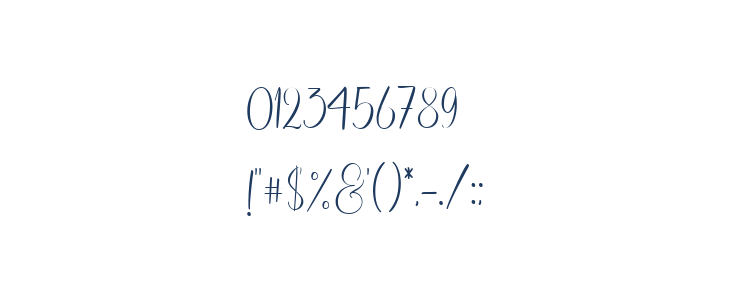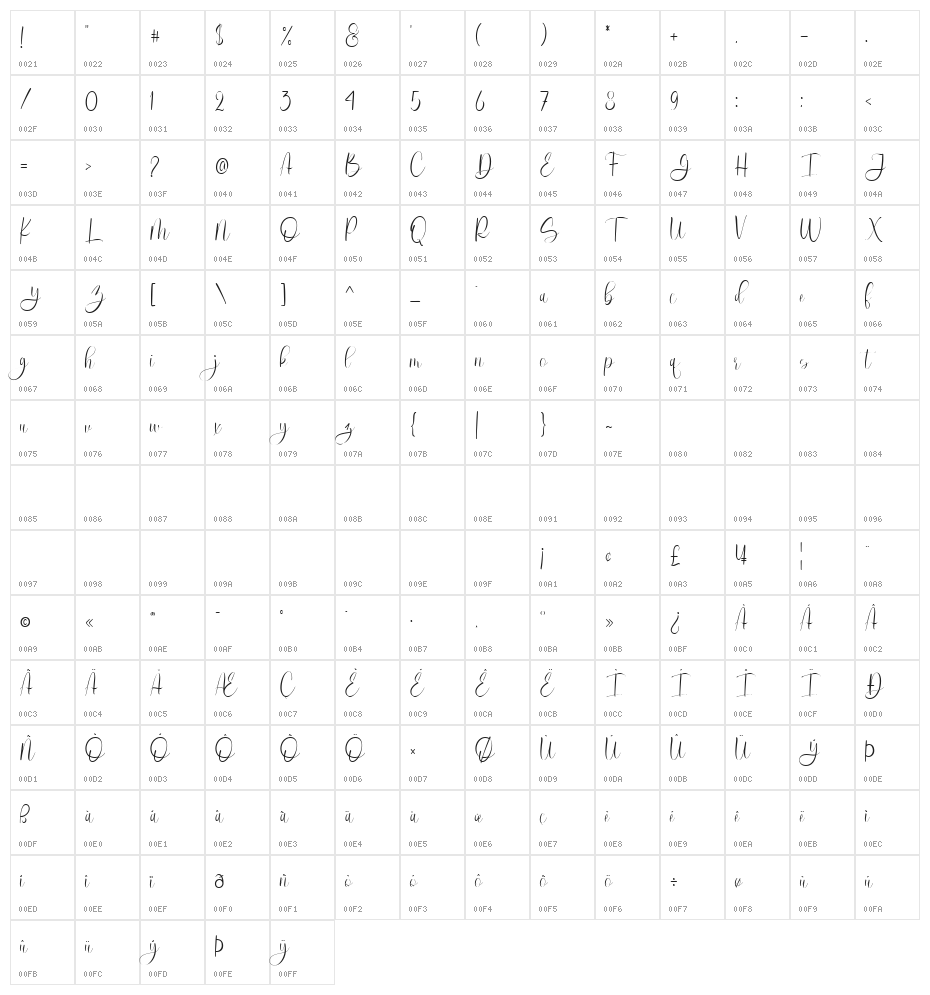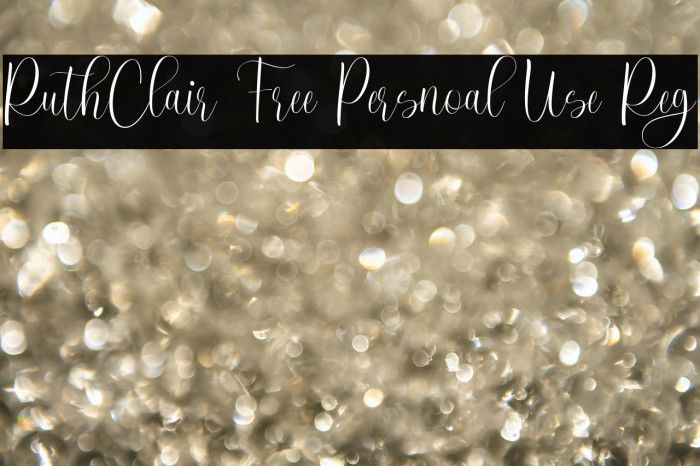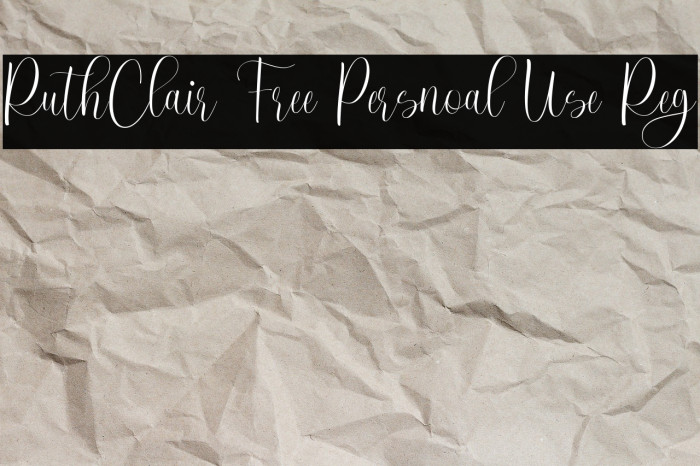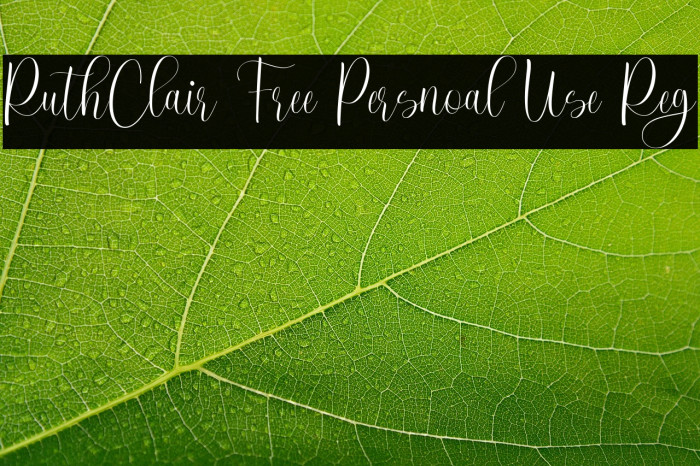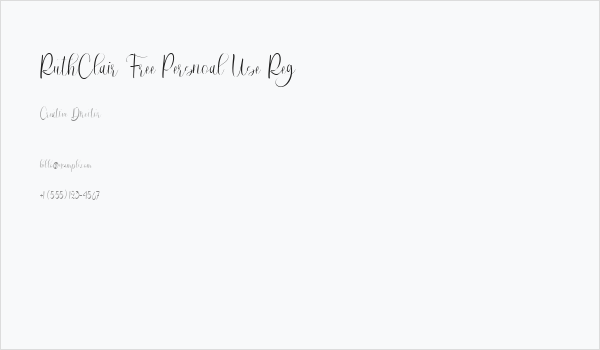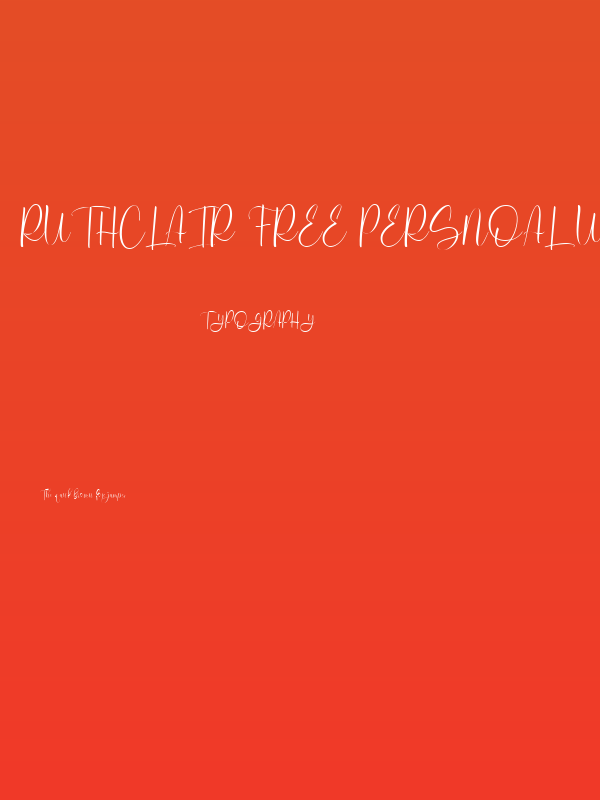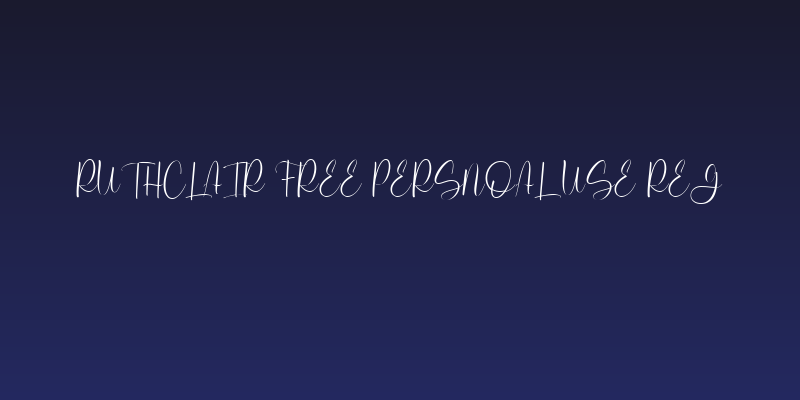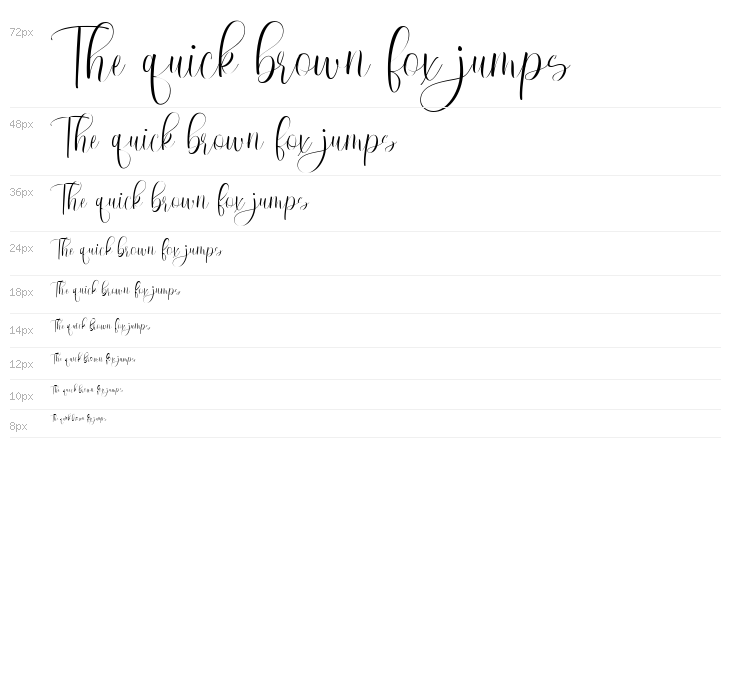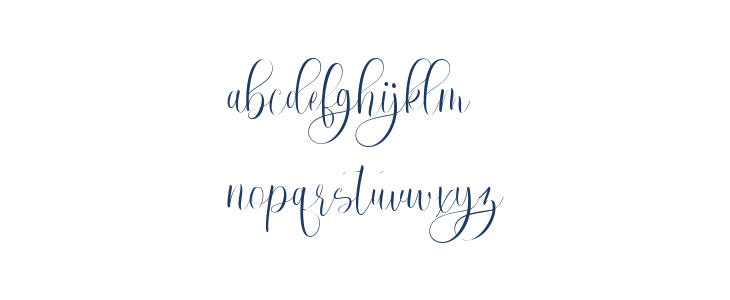
RuthClair Free Persnoal Use Reg Font
RuthClair Free Persnoal Use Reg Description
This elegant script font features a flowing, cursive style with graceful loops and swashes. The characters are delicately crafted, offering a sense of sophistication and charm. The uppercase letters are particularly ornate, with sweeping lines that create a sense of movement and fluidity. The lowercase letters maintain a consistent style, complementing the uppercase with their own subtle flourishes. Numbers and special characters are designed with the same attention to detail, ensuring a cohesive look across all elements. This font is perfect for projects that require a touch of elegance and refinement.